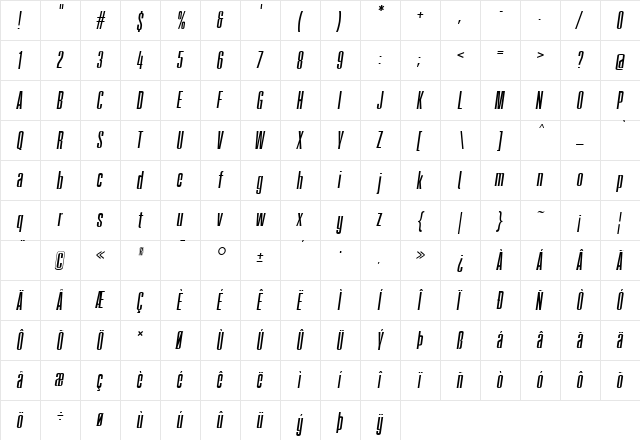
FatCow Italic
Design Context for FatCow Typeface
FatCow takes a measured approach to typography — its balanced proportions and neutral character make it a reliable workhorse for both digital and print work. The slanted form adds forward momentum and visual energy.
Pro Tip: Use FatCow for emphasis, pull quotes, and subheadings where its slanted energy can add rhythm to the layout.